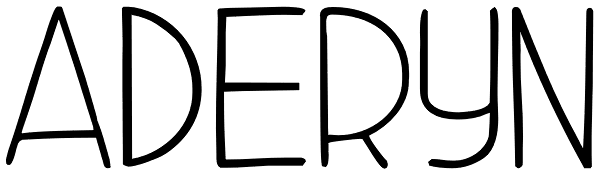
Aderyn
Aderyn is a hand drawn, elegant font with a light touch to it. Aderyn is soft and sleek, but also comes in bolder styles to give a little extra oomph to your designs. Aderyn is Welsh for 'bird', a language I meant to master, but never took beyond...